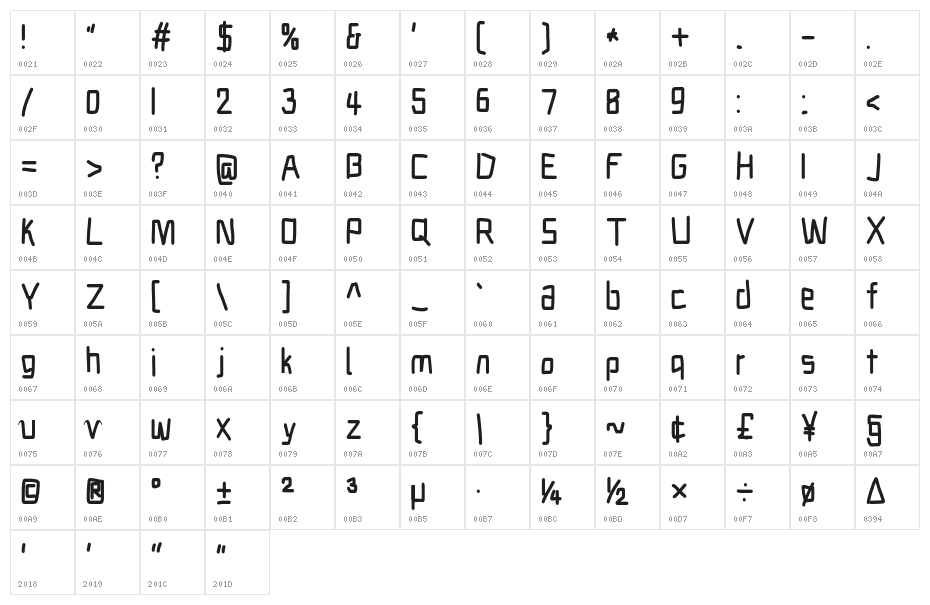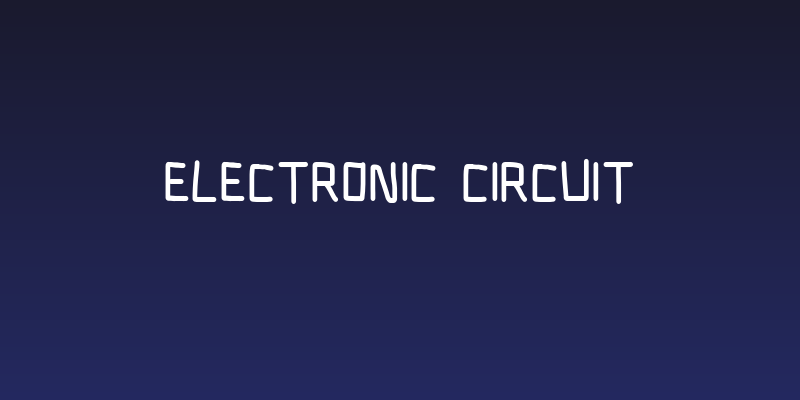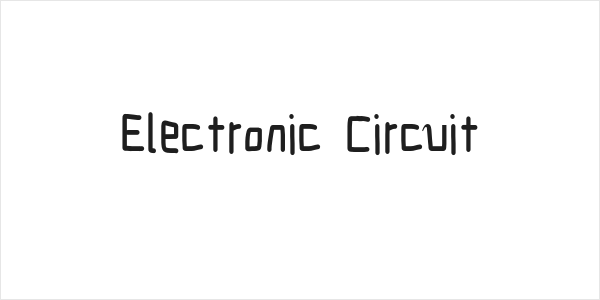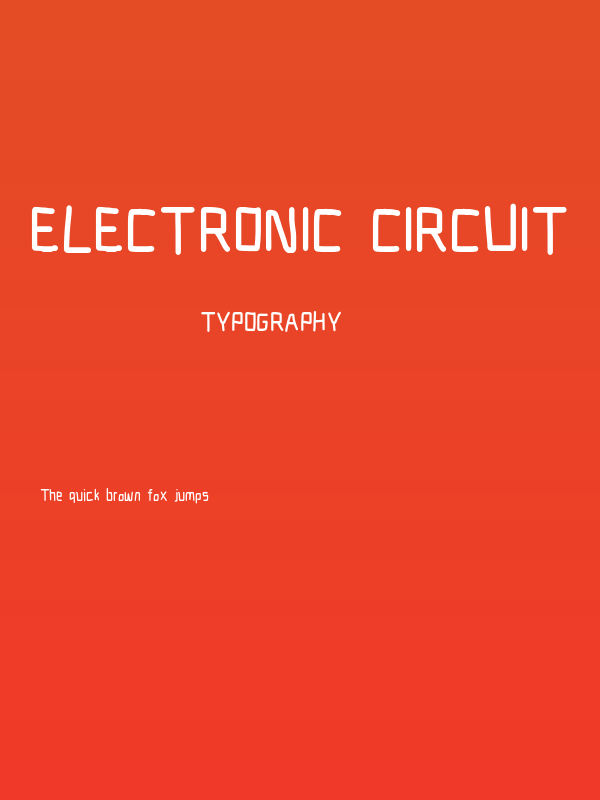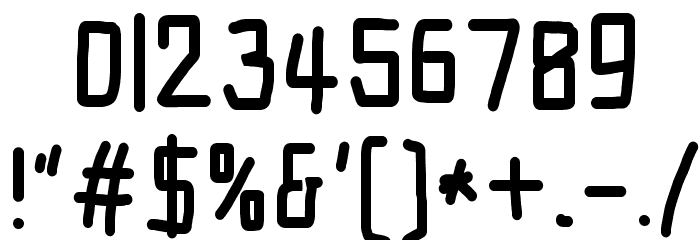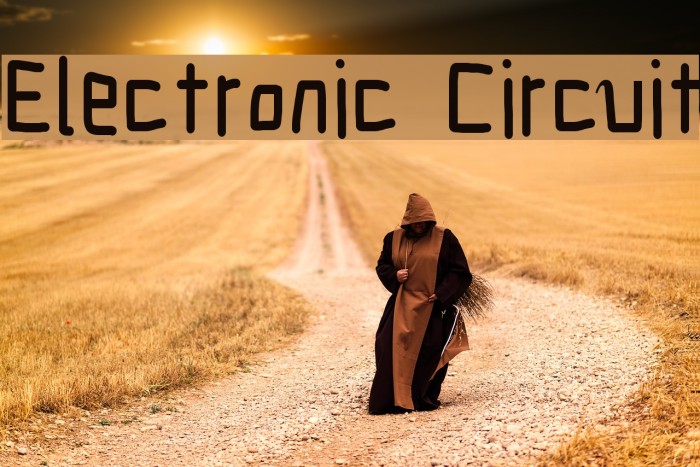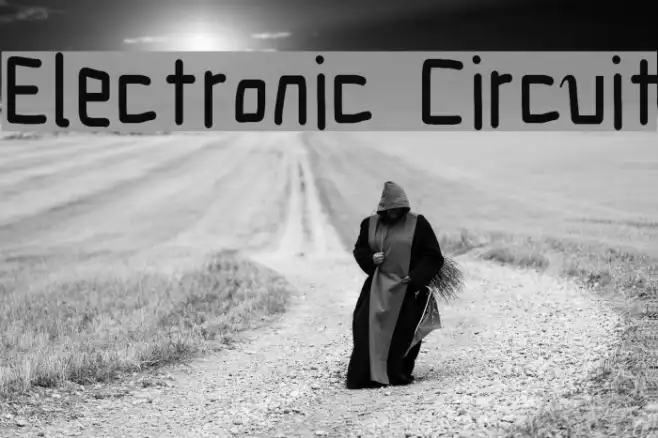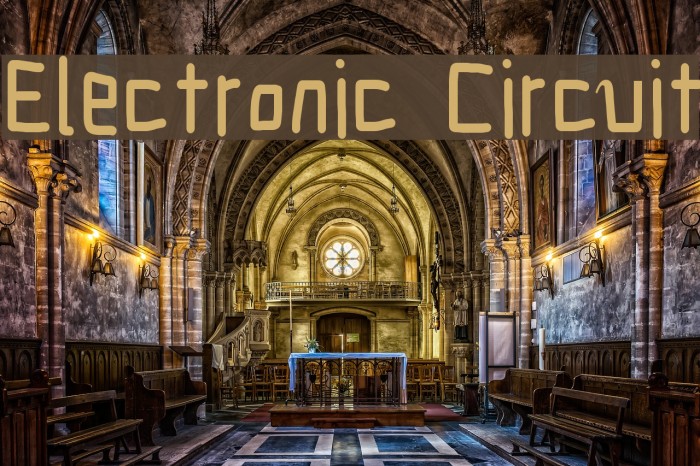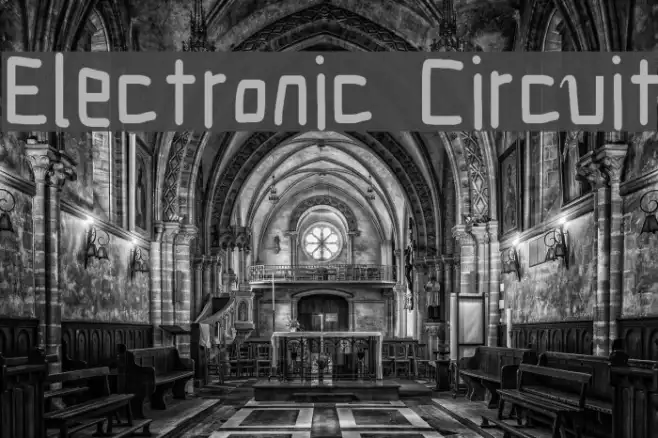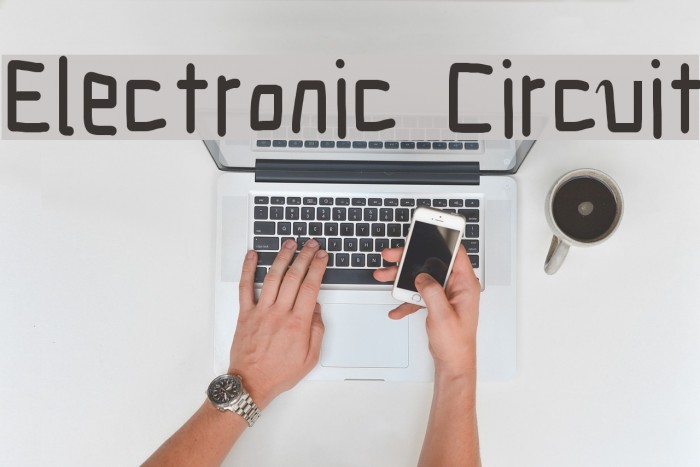
Electronic Circuit Font
Electronic Circuit Description
This font features a unique, hand-drawn style with a modern, electronic aesthetic. The characters are slightly elongated with rounded edges, giving them a distinctive, approachable appearance. The uppercase letters maintain a consistent height, while the lowercase letters exhibit a playful variation in size, adding to the font's charm. The numerals are bold and clear, ensuring readability. Special characters are creatively designed, complementing the overall style. The font's design is reminiscent of digital circuits, making it ideal for tech-related projects. Its informal yet structured look makes it versatile for various design needs.